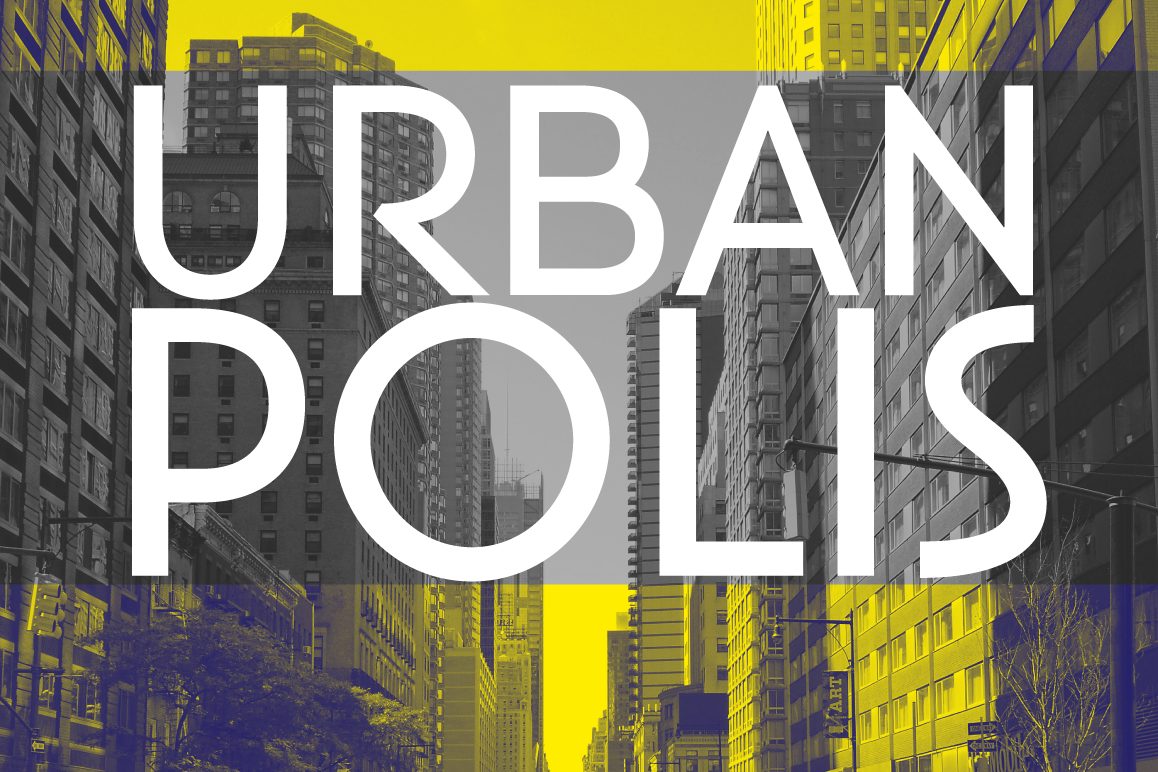
Urbanpolis
Urbanpolis is a clean and elegant sans serif font family. It comes with 4 weights: Light, Regular, Bold and Black + Oblique.
• Uppercase & lowercase
• Punctuation, numerals & symbols
• Multiple language support
• 500+ glyphs
OpenType Features: *
• Standard ligatures & discretional ligatures
• Stylistic alternates
• Localized characters (Catalan, Polish, Dutch, Turkish, Romanian)